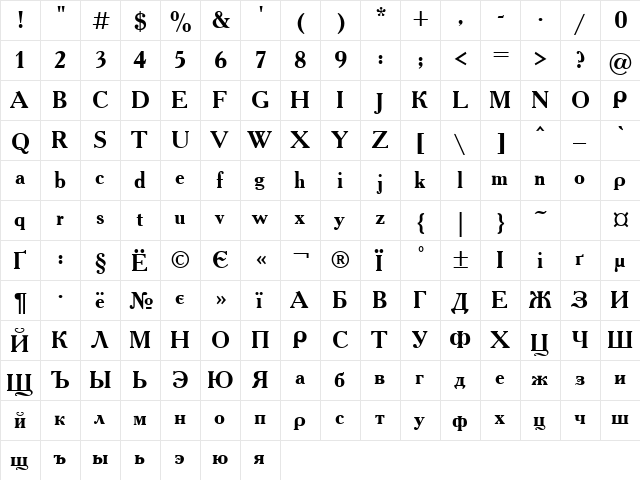
Uk_Academy Bold
Design Context for Uk_Academy Typeface
Uk_Academy offers clean, dependable letterforms without strong stylistic allegiance, making it a practical choice for designers who need flexibility. Its bold stroke weight gives it real presence on the page.